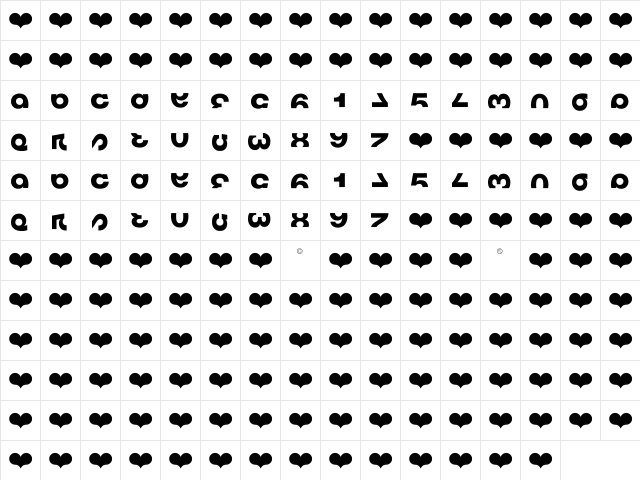
DS NSW85 Regular
Design Context for DS NSW85 Typeface
DS NSW85 is a composed and adaptable typeface that performs quietly and consistently across a wide range of design contexts.